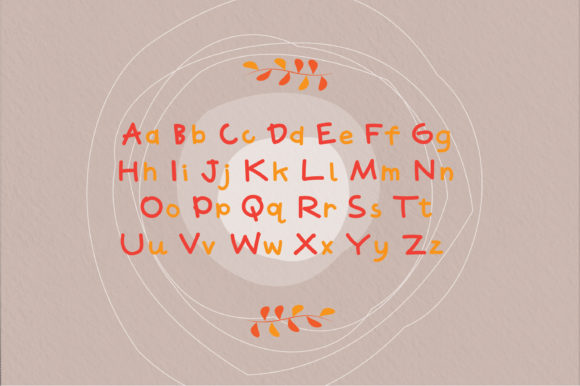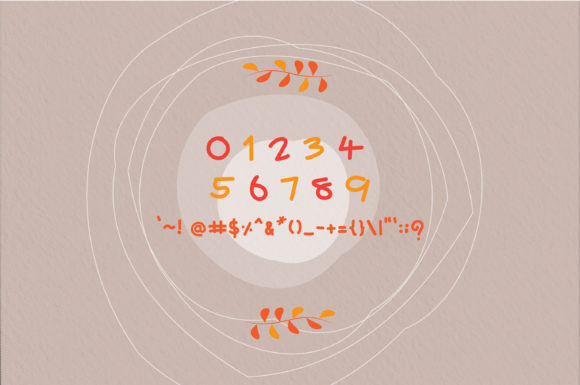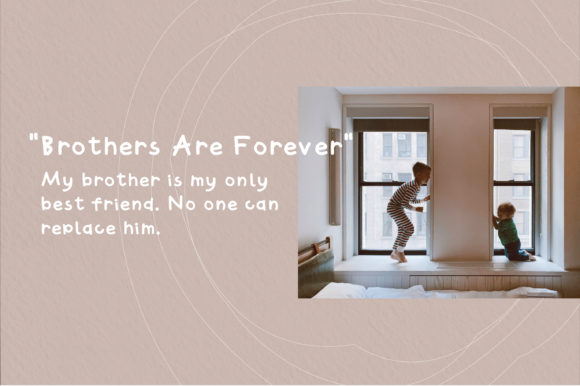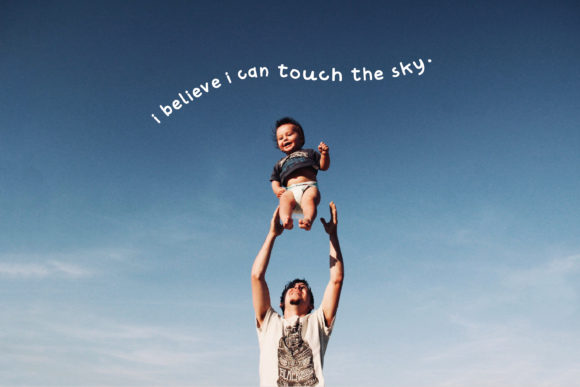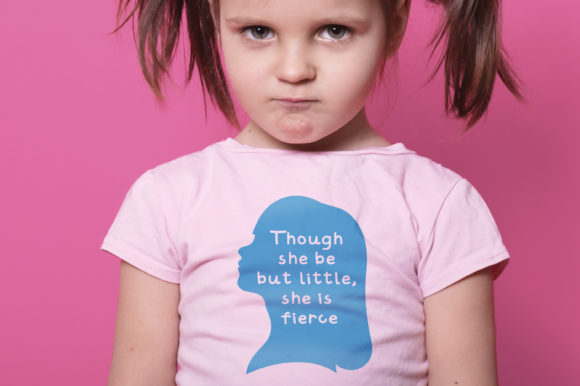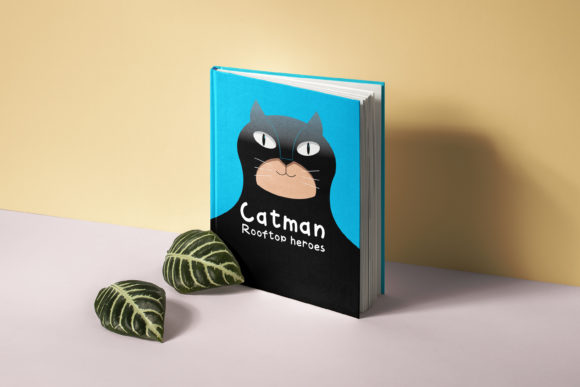
Introduction to Lala Lulu Font
Lala Lulu is a sweet and neat handwritten font.
Suitable to a wide variety of designs due to its neat and simple style, Lala Lulu has the potential to become your favorite go-to font, no matter the occasion .